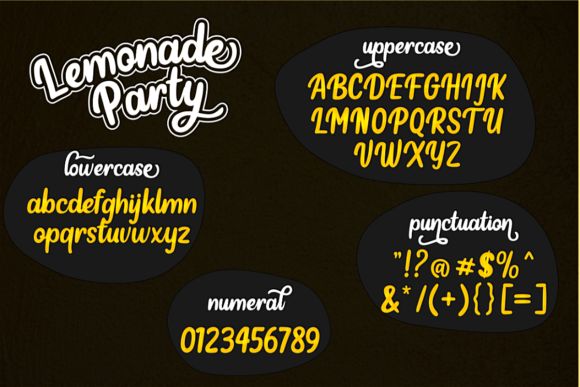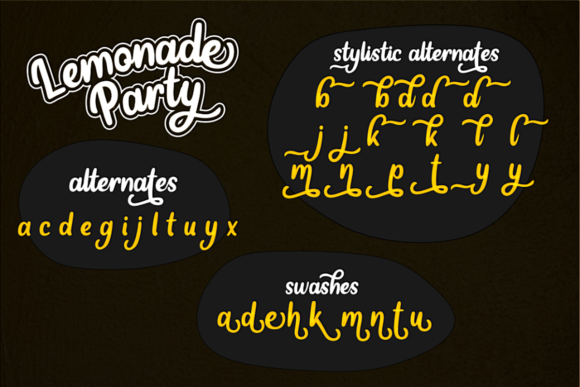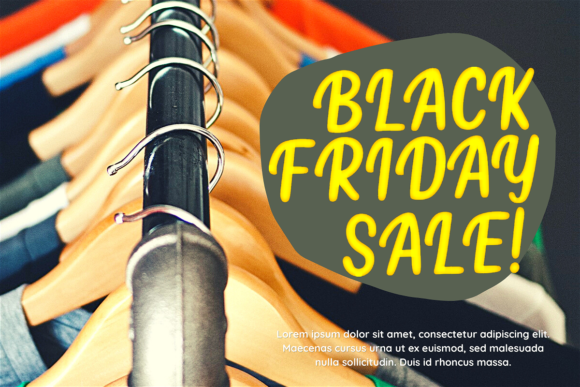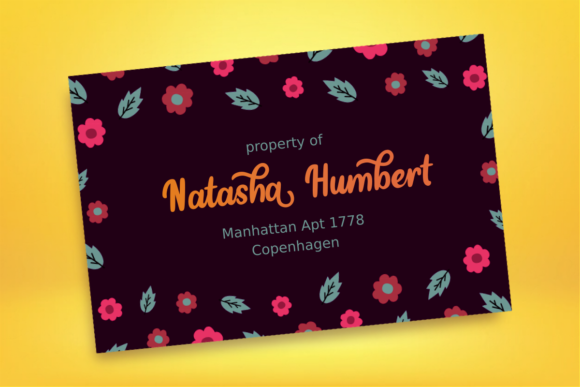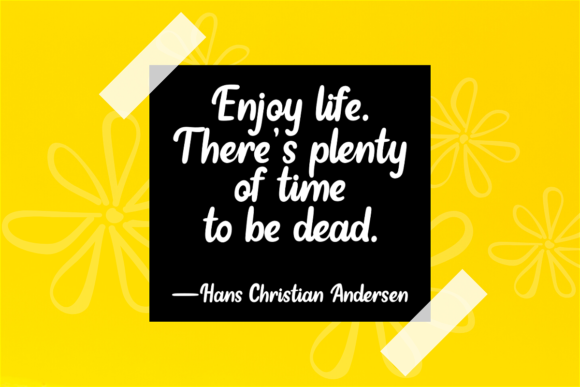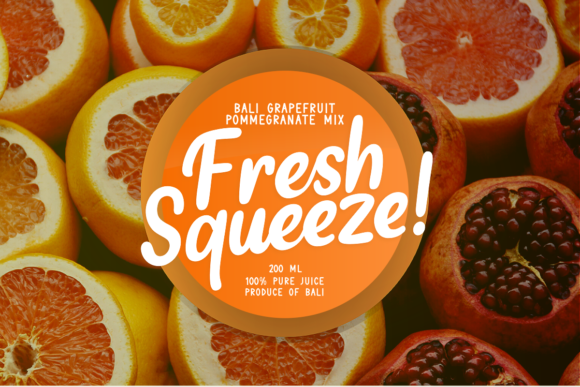
Introduction to Lemonade Party Font
Have you ever been stuck trying to find the perfect font to match the vibe of your creative project? You know, that moment when everything feels off, and you’re about to give up hope? Well, we’ve all been there, and it’s exactly why we’re excited to introduce you to the Lemonade Party Font – a simple yet elegant script font designed to elevate your designs to the next level.
With its balanced and varied strokes, the Lemonade Party Font is the perfect addition to any design project. Whether you’re a seasoned pro or just starting out, this high-quality font is sure to bring a touch of sophistication to your work. And the best part? It’s available for free download, making it an invaluable resource for designers of all levels.
Key Features of Lemonade Party Font
- Unique, playful design perfect for creative projects and celebrations
- Perfect for creating eye-catching titles, headings, and other design elements for parties, events, and more
Honest Review: Lemonade Party Font
I recently stumbled upon the Lemonade Party Font while searching for a fun, playful design resource for my next creative project. As a designer, I appreciate high-quality fonts that can elevate my work and make it stand out.
- The font is well-suited for creative projects that require a whimsical touch, such as invitations, party decorations, and more.
- The font may not be ideal for formal or professional projects, as it can come across as too playful or juvenile.
- The font lacks a comprehensive character set, which may limit its usability for projects that require specific characters or symbols.
Overall, I’m impressed with the Lemonade Party Font‘s high quality and versatility. While it may have some limitations, it’s a valuable design resource that can add a touch of fun and creativity to any project.
The Lemonade Party Font is ideal for creating custom graphics, invitations, and other design elements for parties, events, and other celebrations. It’s also great for creating custom logos, branding materials, and other design elements for businesses and organizations.